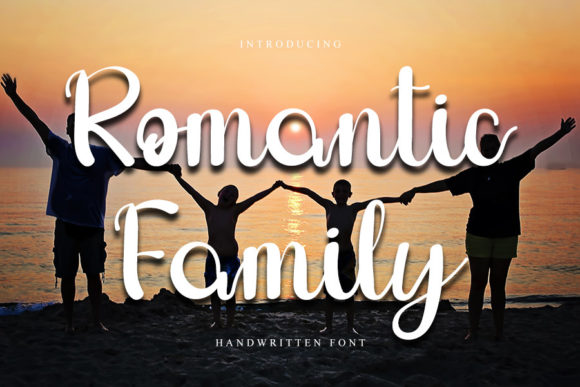
Welcome to the world of Romantic Family Font, where elegance meets charm in every letter. This exquisite script font is a breathtaking blend of contemporary style and classic calligraphy, capturing the essence of sophisticated handwriting in a digital format. Let your creativity dance with its graceful strokes and captivating curves, turning your digital designs into captivating works of art.
Designed by the talented minds at Inermedia STUDIO, Romantic Family Font has been carefully crafted to elevate your projects with impeccable form and a timeless appeal. Each glyph is meticulously shaped to strike a perfect balance between thin and thick lines, creating a harmonious rhythm that captivates the eyes. This font is not just a tool; it's an extension of your creative vision, transforming ordinary words into mesmerizing art.
Whether you're a graphic designer seeking a font that embodies elegance, a blogger looking to add a touch of sophistication to your content, or an entrepreneur yearning for a distinct brand identity, Romantic Family Font has got you covered. Its versatile nature makes it the perfect choice for a wide range of projects, from personal stationery and wedding invitations to captivating social media posts and eye-catching marketing materials.
Step into the realm of boundless creativity with Romantic Family Font. Let its enchanting strokes weave a spell of sophistication into your designs, leaving a lasting impression on your audience. Embrace the beauty of timeless calligraphy redefined for the digital age and experience the joy of creating designs that capture hearts and ignite imaginations.
Join the countless artists, designers, and entrepreneurs who have discovered the power of Romantic Family Font. Elevate your projects to new heights of beauty and distinction, leaving a mark of elegance that will leave your audience awe-inspired. The world of typography awaits your creative touch – seize this opportunity to make your mark with Romantic Family Font.